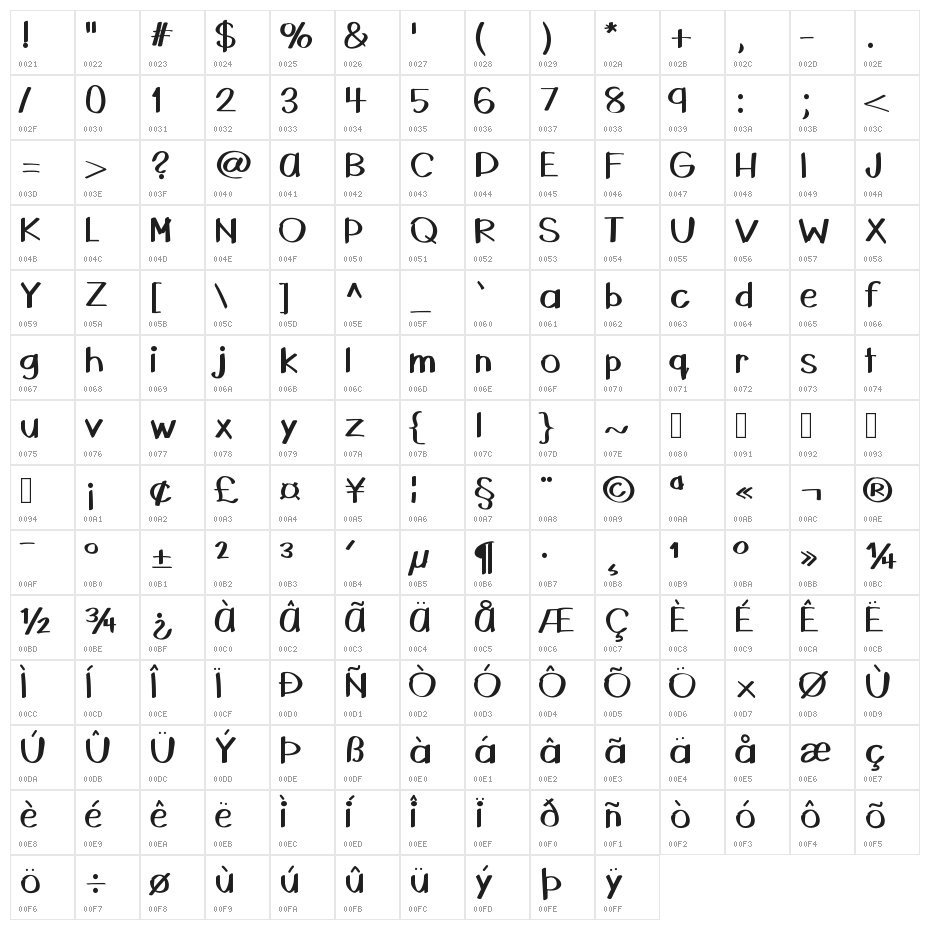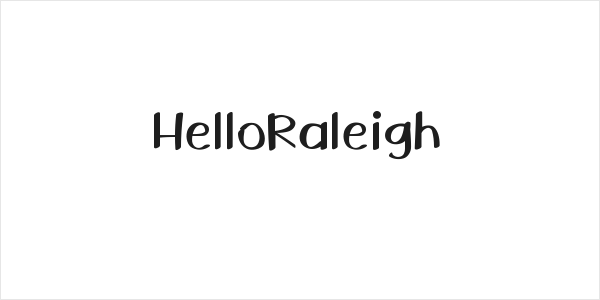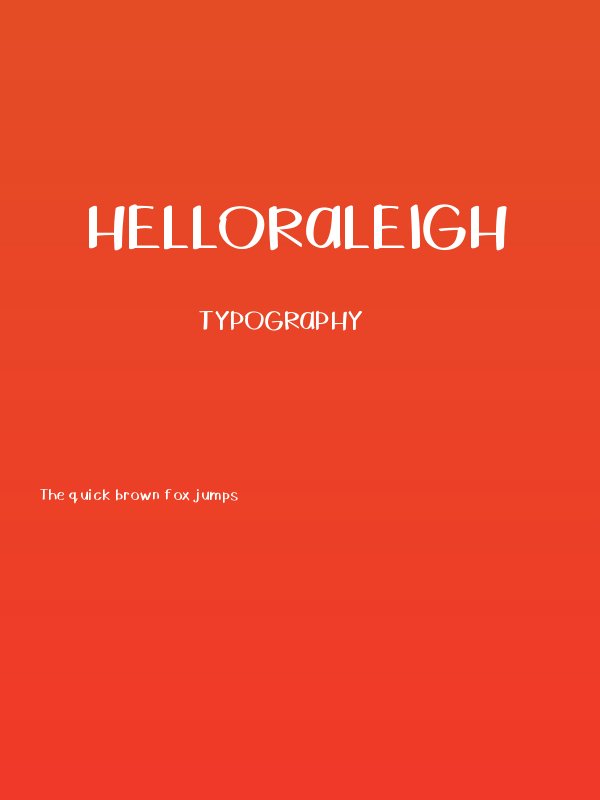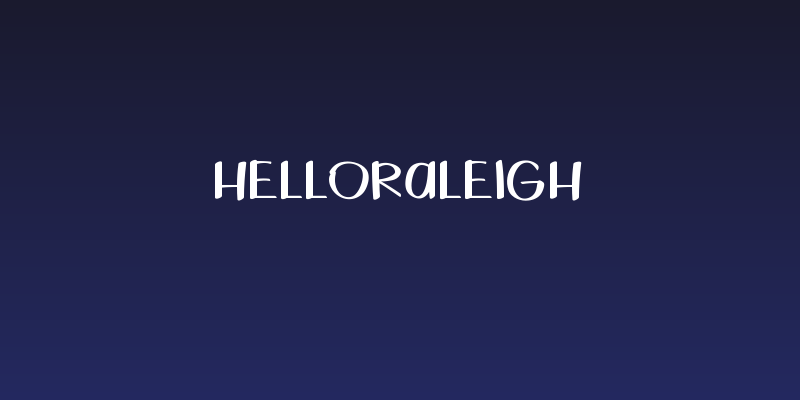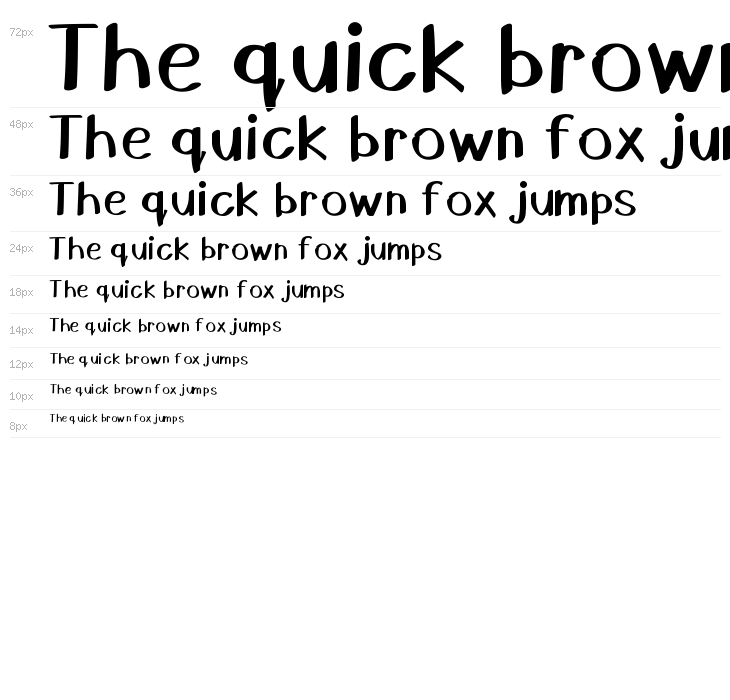
HelloRaleigh Font
HelloRaleigh Description
This font features a playful and whimsical style with a handwritten appearance. The letters are bold and rounded, giving them a friendly and approachable feel. The uppercase and lowercase characters maintain a consistent style, with slight variations that add to the casual aesthetic. Numbers and special characters are designed to match the overall theme, ensuring a cohesive look across all text. The strokes are smooth and even, providing a clean and polished finish. This font is ideal for projects that require a touch of personality and charm.
| Overall Style | Playful |
| Use Case | Headlines, Logos, Informal Text |
| Proposed Projects | Perfect for children's books, greeting cards, playful branding, and social media graphics. |